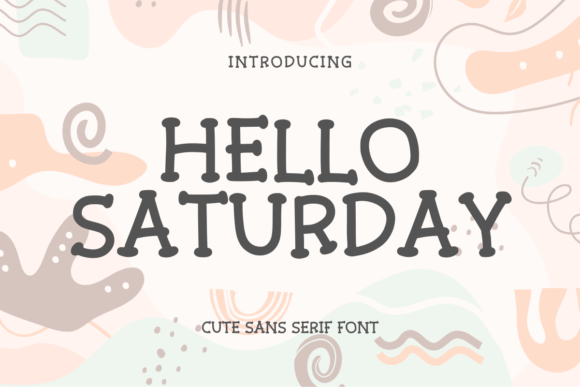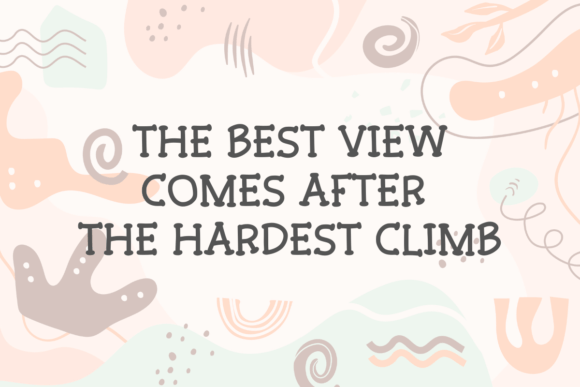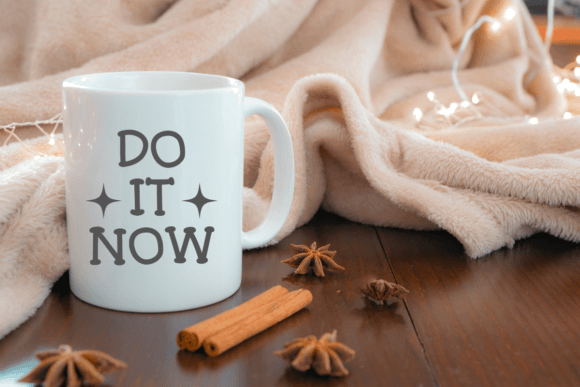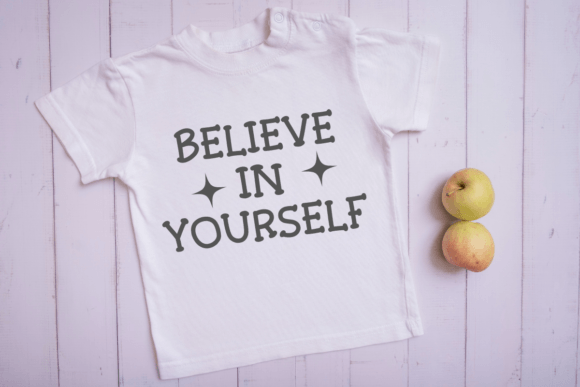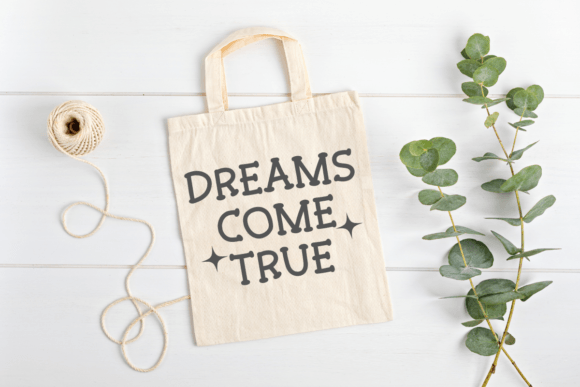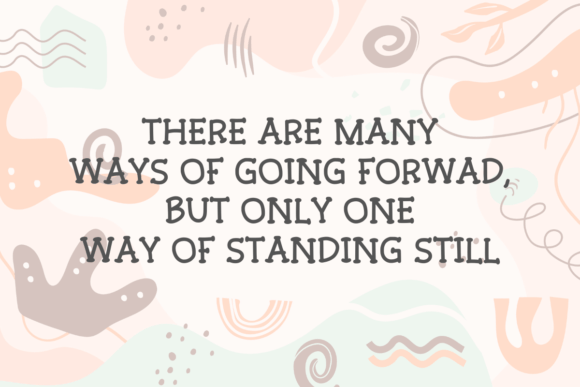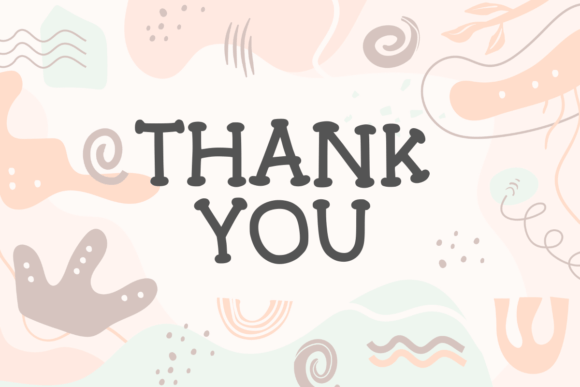
Hello Saturday Font
About Hello Saturday Font
Hello Saturday is a refreshing and tidy slab-serif typeface that embodies simplicity and clarity. With clean lines and gentle curves, it emanates a sense of modernity and elegance. Ideal for various design projects, Hello Saturday brings a polished and contemporary touch to any text or layout.